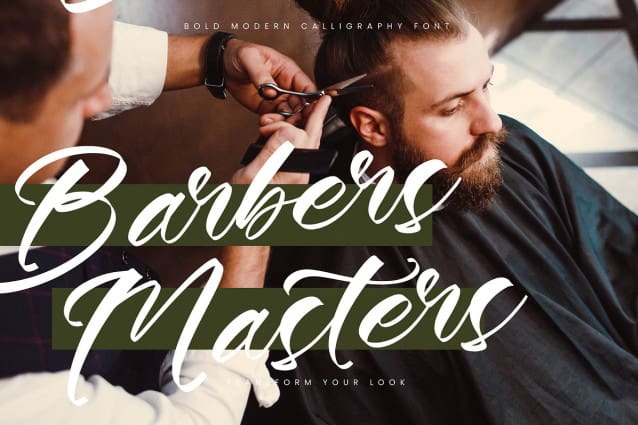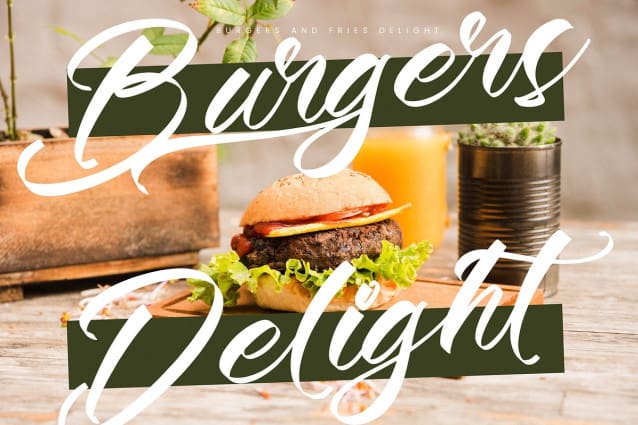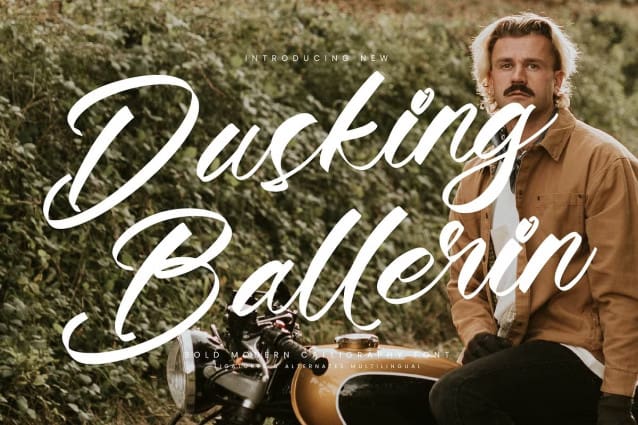
Dusking Ballerin Font
Dusking Ballerin Font – Bold Modern Calligraphy, from Integritype Studio, perfect for any project like: logos, branding projects, homewares designs, product packaging, mugs, quotes, posters, shopping bags, t-shirts, covers books, business cards, invitation cards, greeting cards, labels, photography, watermarks, special events and all your other luxury projects that require a premium taste.